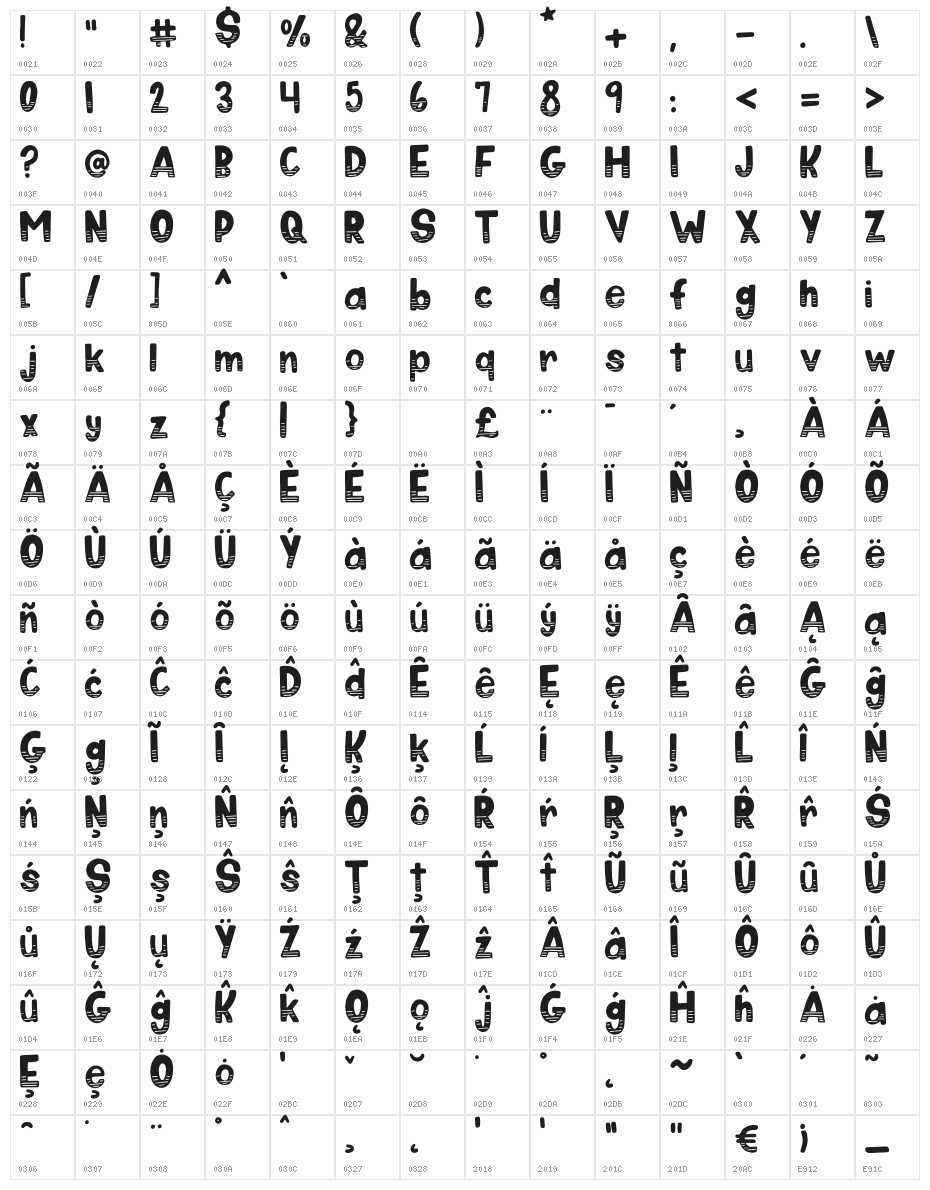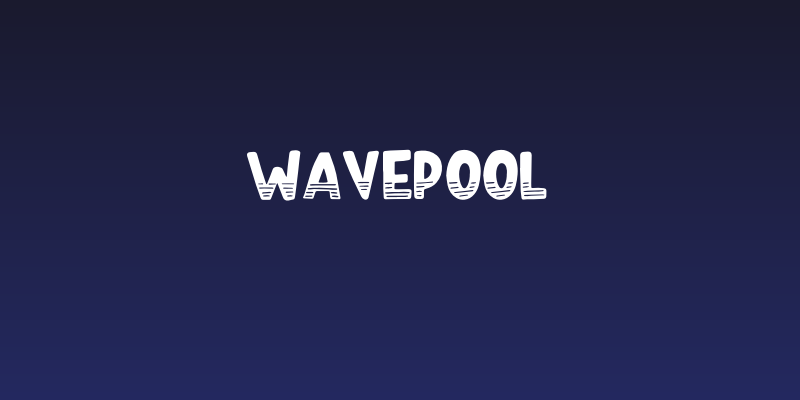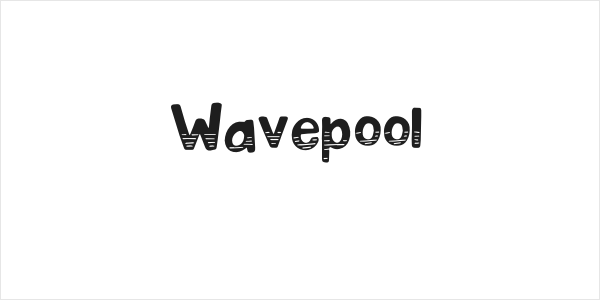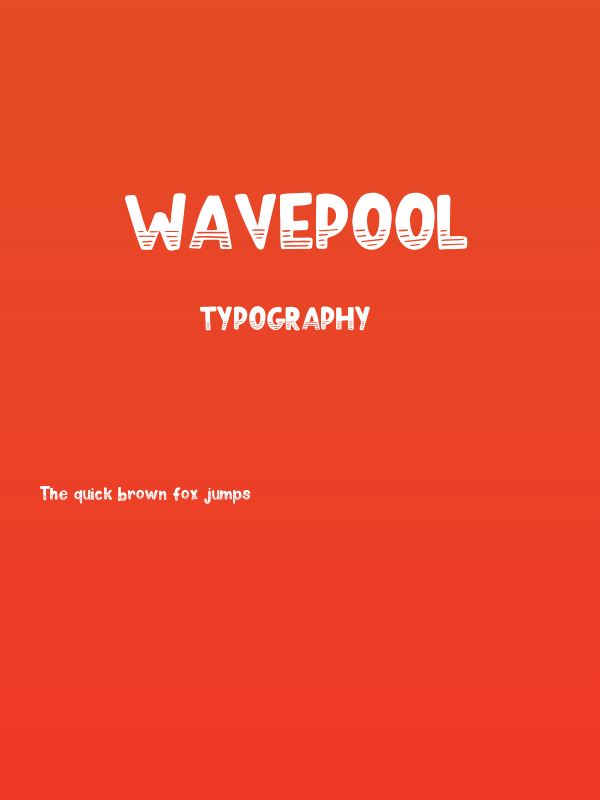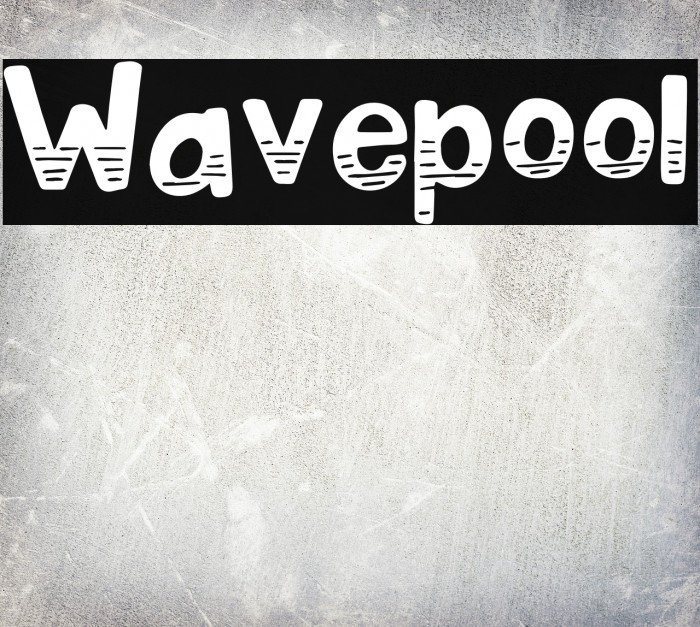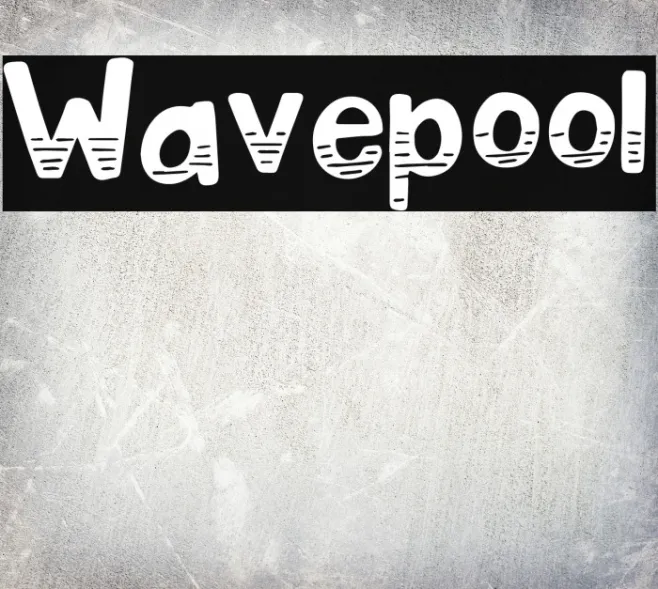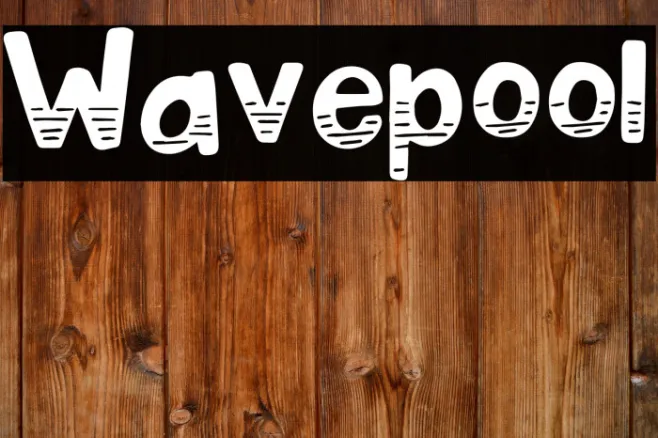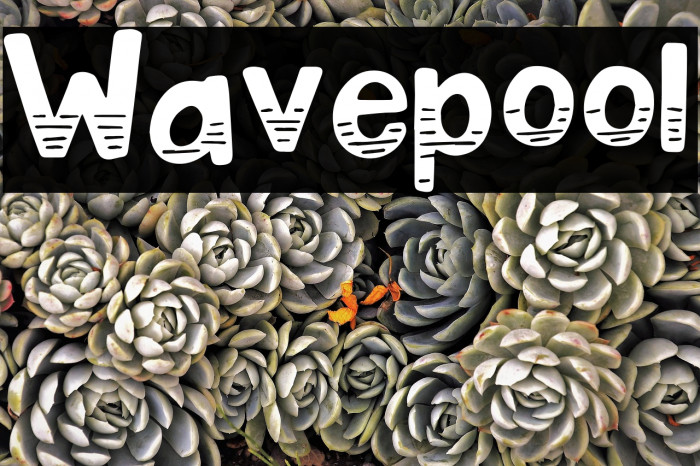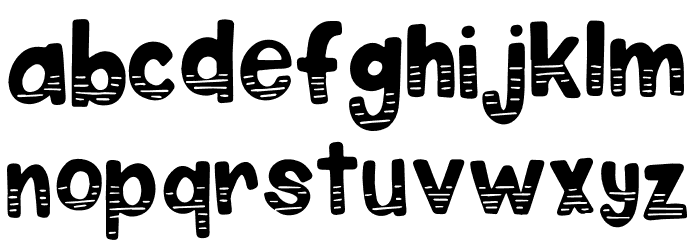
Wavepool Font
Wavepool Description
This playful and bold font features a unique, hand-drawn style with a striped pattern within each character. The uppercase and lowercase letters are rounded and slightly irregular, giving a whimsical and casual appearance. The numbers and special characters maintain this playful aesthetic, making the font ideal for creative and informal designs. Its bold strokes and decorative elements make it stand out, while the consistent pattern across characters ensures a cohesive look.
| Use Case | Logos, Posters, Invitations |